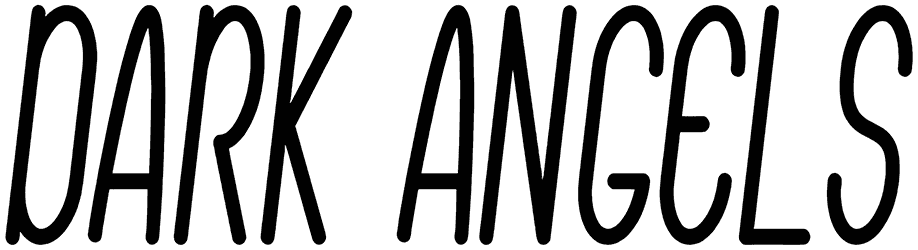
Dark Angels Font
A modern and minimal handwritten font such as this one is a perfect selection for countless projects. Dark Angels font’s letters are tall, realistic, and casual, and you can use them to create a memorable party invitation card. Put this neon font on your intended layout and show off your creative skills.